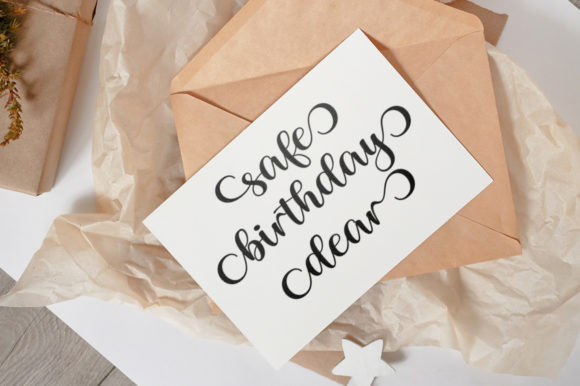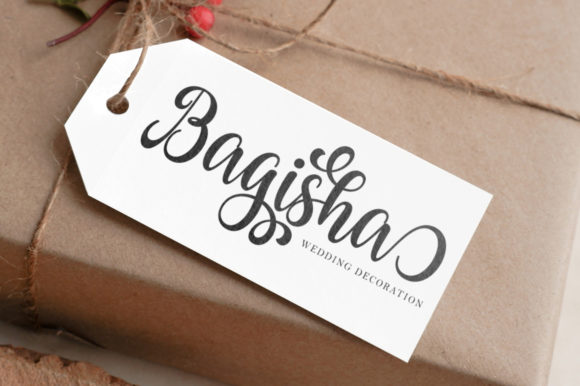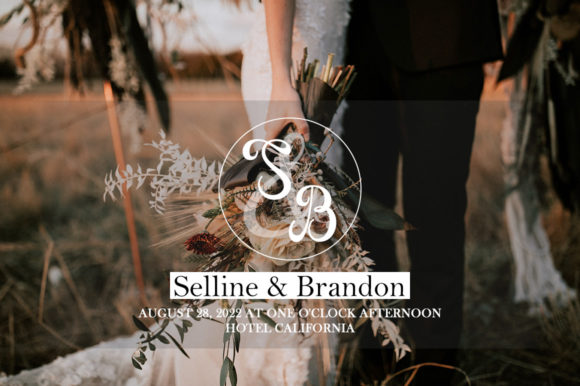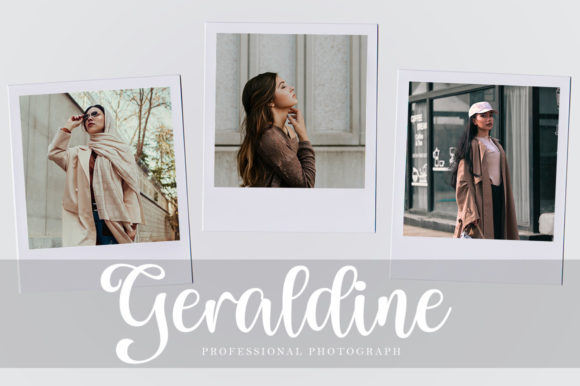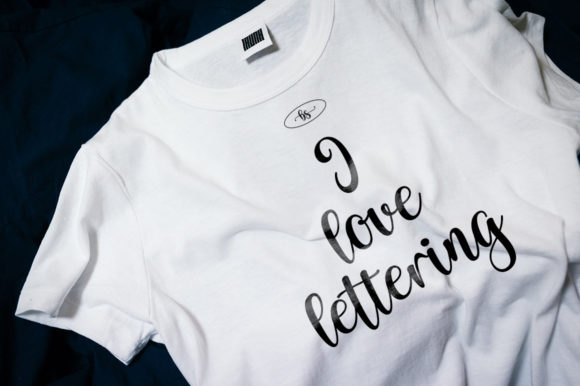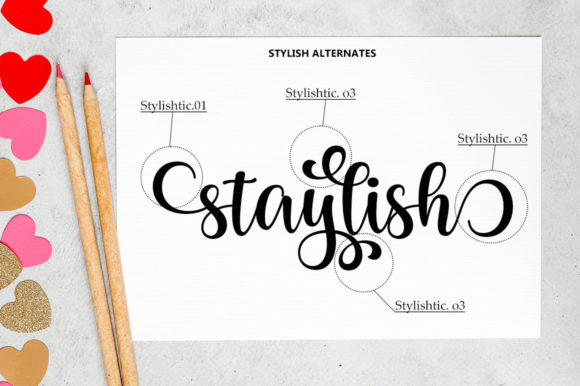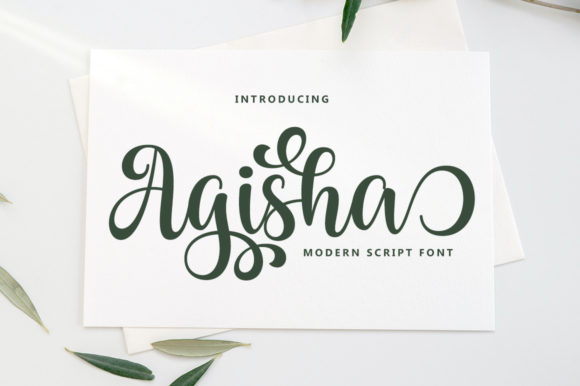
Introducing Agisha Font: Elevate Your Designs with Elegance and Class
Are you tired of using the same old fonts in your designs? Look no further! Agisha Font is a stunning script font that adds a touch of sophistication and refinement to any project. Crafted with love and care, Agisha is perfect for designers and crafters seeking a beautiful and refreshing look to elevate their creations.
The Story Behind Agisha Font
Agisha Font was designed with the intention of creating a unique and captivating script font that exudes elegance and class. The creators of Agisha aimed to craft a font that would be versatile enough to be used in various design projects, from wedding invitations and branding materials to digital and print media.
Key Features of Agisha Font
- Lovely and Delicate: Agisha Font boasts a delicate and charming appearance, making it perfect for designs that require a touch of sophistication.
- Script Elegance: Agisha’s script style is both elegant and refined, adding a level of luxury to any design.
- Versatile: Agisha Font can be used in a wide range of design projects, from formal events to digital media.
- Easy to Read: Despite its delicate nature, Agisha Font is easy to read, making it perfect for body text and headings.
What Makes Agisha Font Stand Out?
Agisha Font stands out from other script fonts due to its unique and captivating design. The font’s delicate lines and elegant curves create a beautiful, hand-crafted look that is sure to impress. Whether you’re designing a wedding invitation, a logo, or a brochure, Agisha Font is sure to add a touch of sophistication and refinement.
How to Use Agisha Font in Your Designs
Agisha Font can be used in a variety of design projects, including:
- Wedding Invitations: Add a touch of elegance to your wedding invitations with Agisha Font.
- Branding Materials: Use Agisha Font to create stunning logos, business cards, and letterheads.
- Digital Media: Agisha Font can be used in digital media, such as social media graphics, blog posts, and email newsletters.
- Print Media: Agisha Font is perfect for print media, including brochures, flyers, and posters.
Tips and Tricks for Using Agisha Font
To get the most out of Agisha Font, here are some tips and tricks:
- Pair with Bold Fonts: Pair Agisha Font with bold fonts to create a striking contrast.
- Use in Headings: Use Agisha Font in headings to add a touch of elegance and sophistication.
| Author | Black Studio |
Agisha Font is a beautiful and elegant script font that is perfect for designers and crafters seeking to add a touch of sophistication and refinement to their designs. With its delicate lines, elegant curves, and versatile design, Agisha Font is sure to become a favorite in your font collection. So why wait? Download Agisha Font today and elevate your designs to the next level!